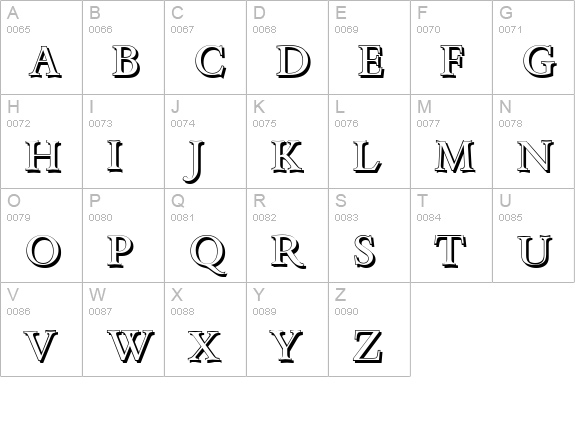
BernsteinShadow-Regular Font Details
BernsteinShadow-Regular is the standard, neutral variant in the BernsteinShadow typeface family \xE2\x80\x94 well suited to general body text, paragraphs, and standard typographic work.
BernsteinShadow-Regular is a unique and stylish font that brings a touch of elegance and sophistication to any project. Its intricate design features sharp edges and subtle curves that create a visually appealing look. This font is perfect for adding a modern yet classic touch to logos, headlines, posters, and more. The best part is that BernsteinShadow-Regular is completely free to download at FontsMarket.com. Whether you're a designer looking to enhance your creations or someone in need of a fresh font for personal use, this font is the perfect choice. Don't miss out on the opportunity to elevate your designs with this stunning typeface that is just a click away. Download BernsteinShadow-Regular today and let your creativity shine!